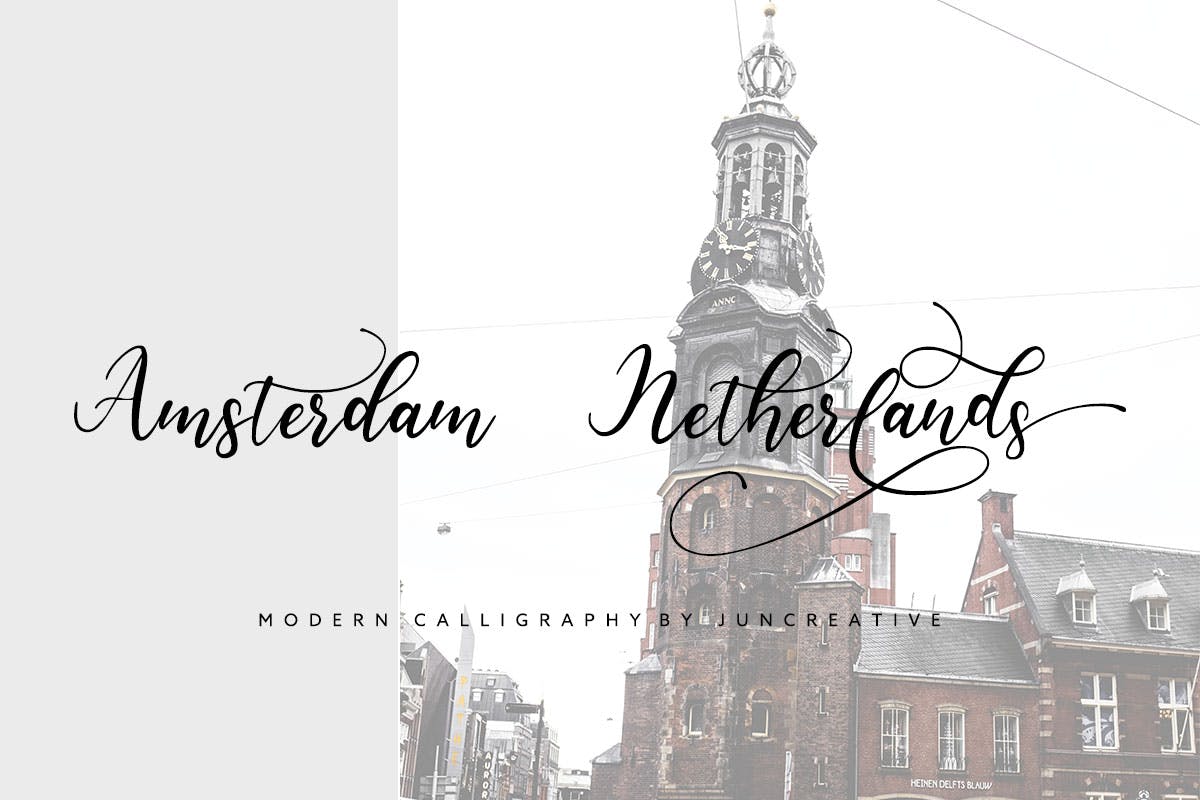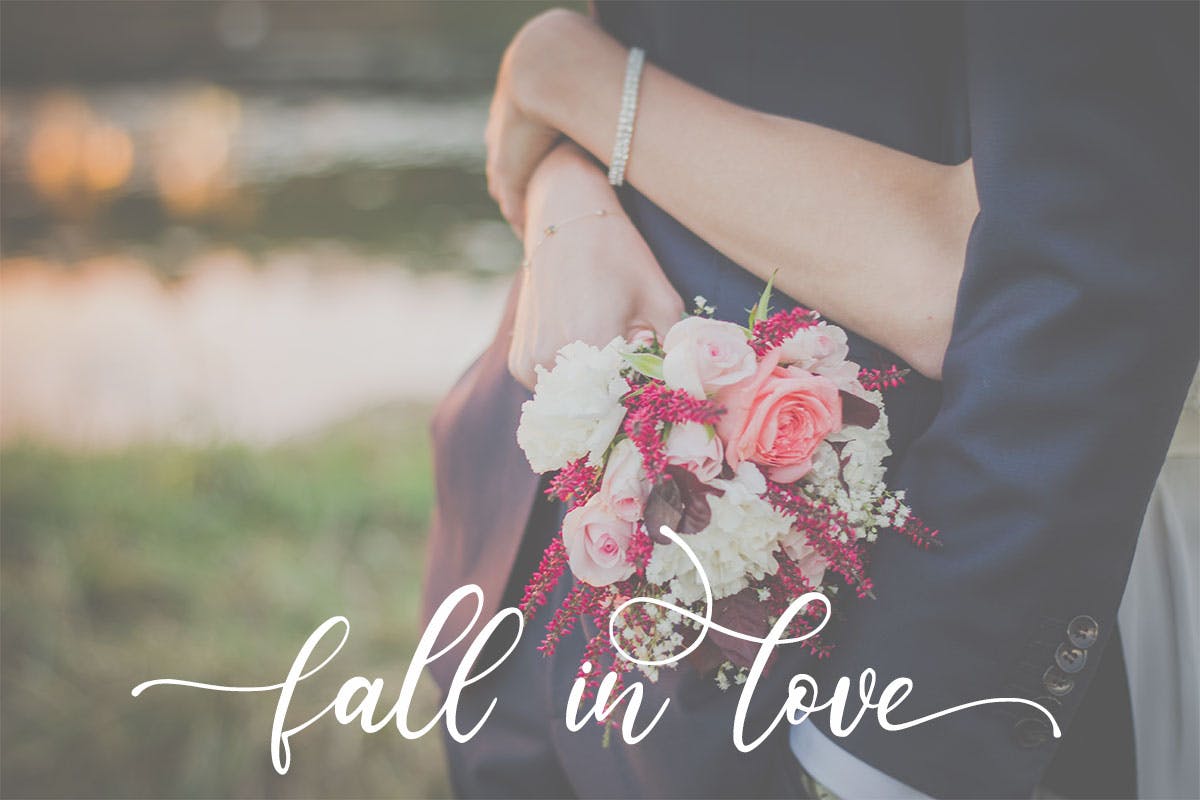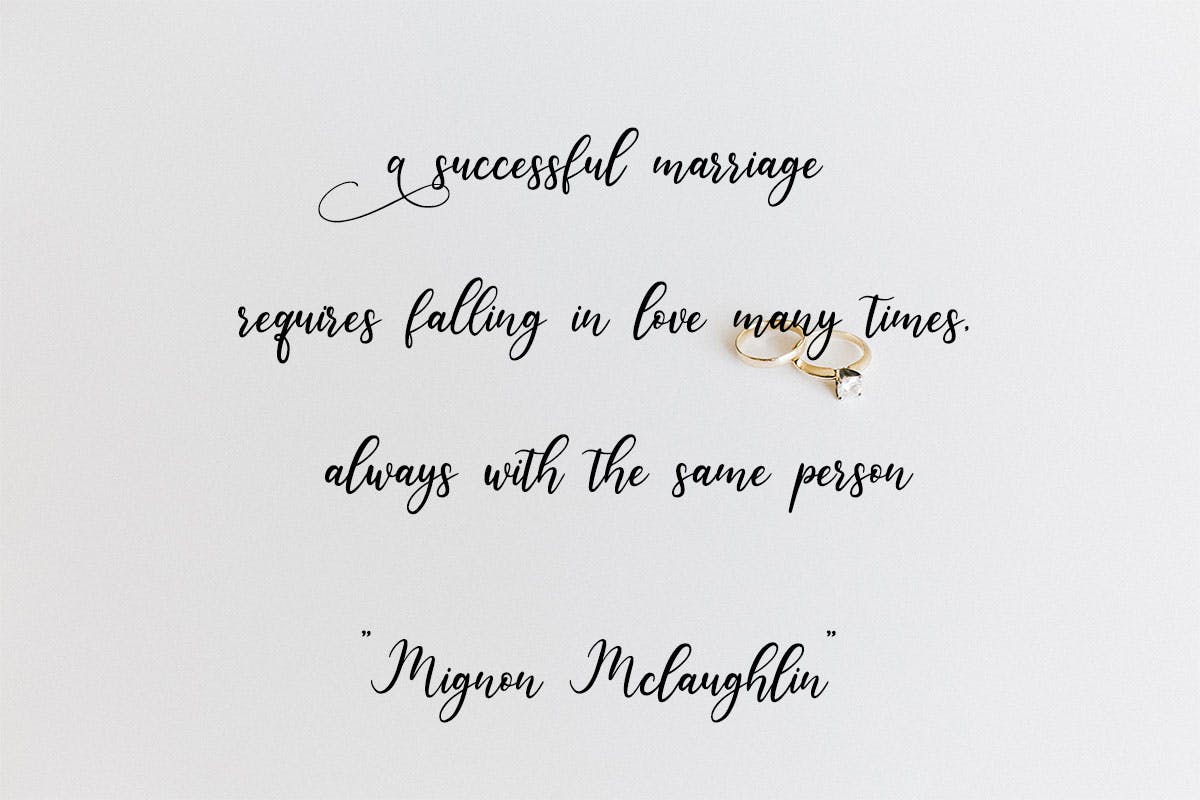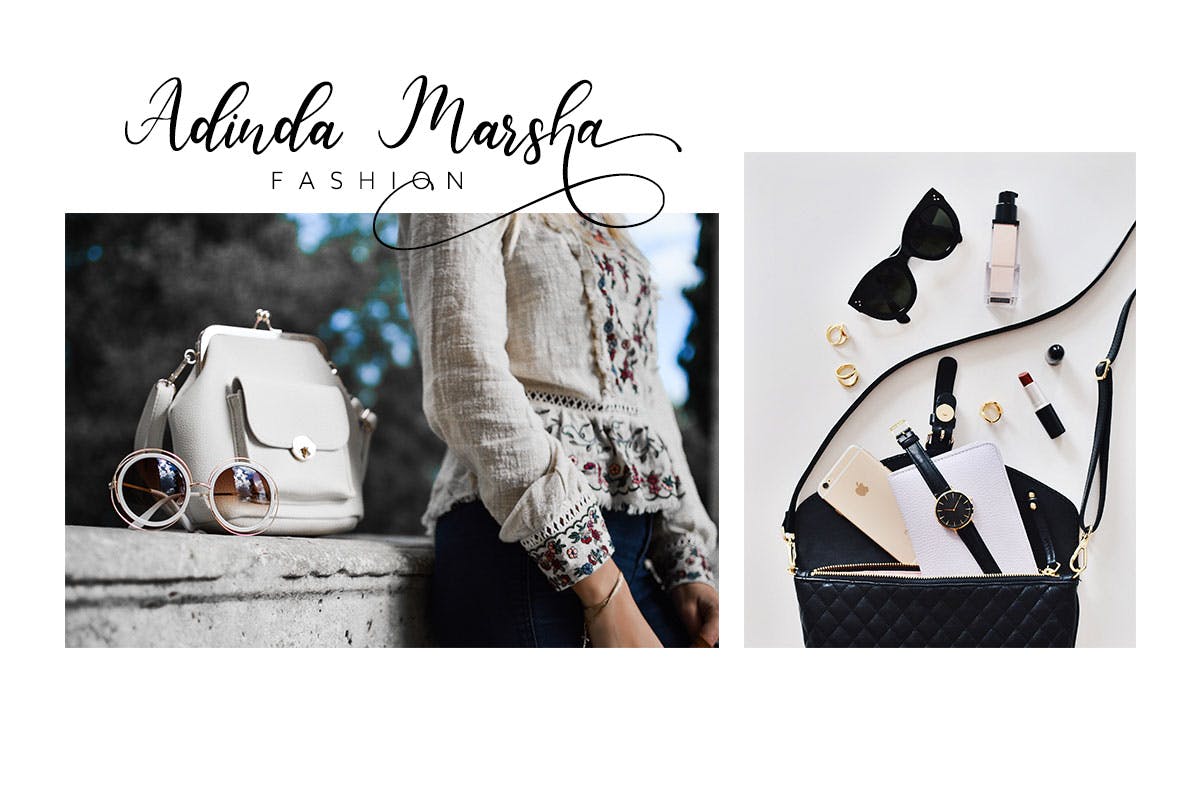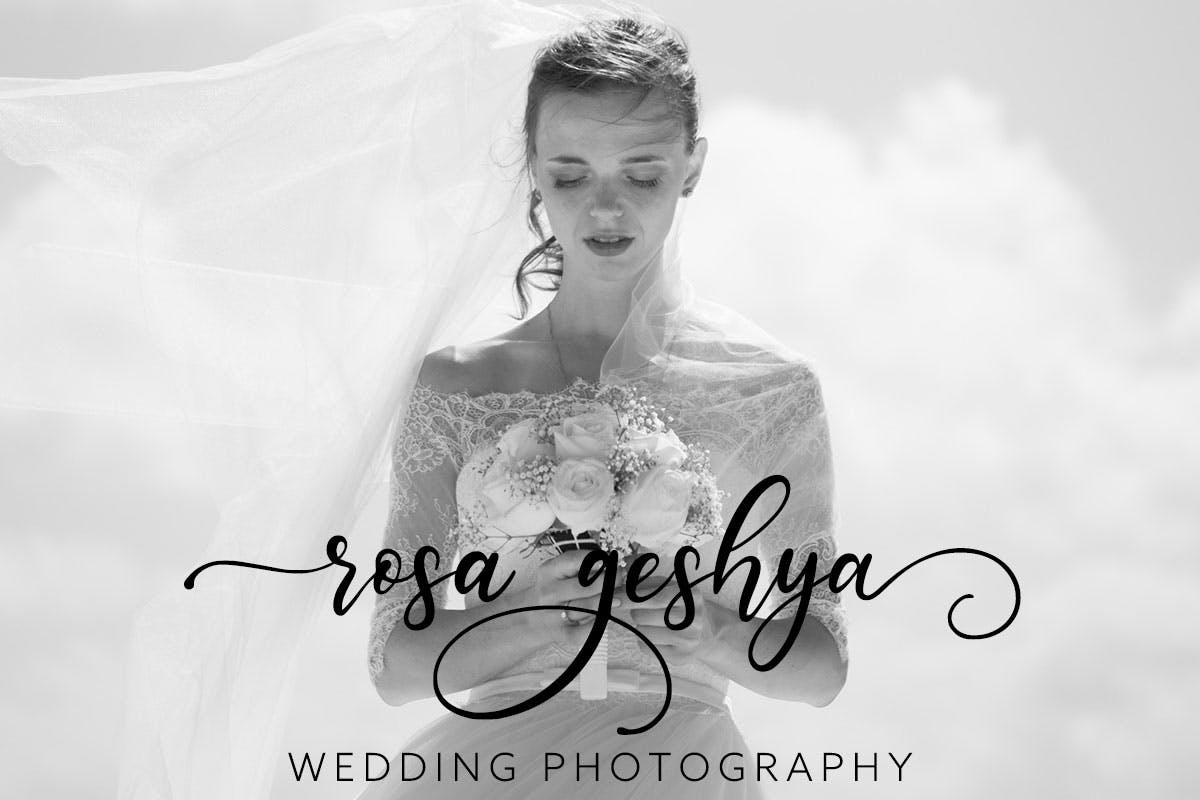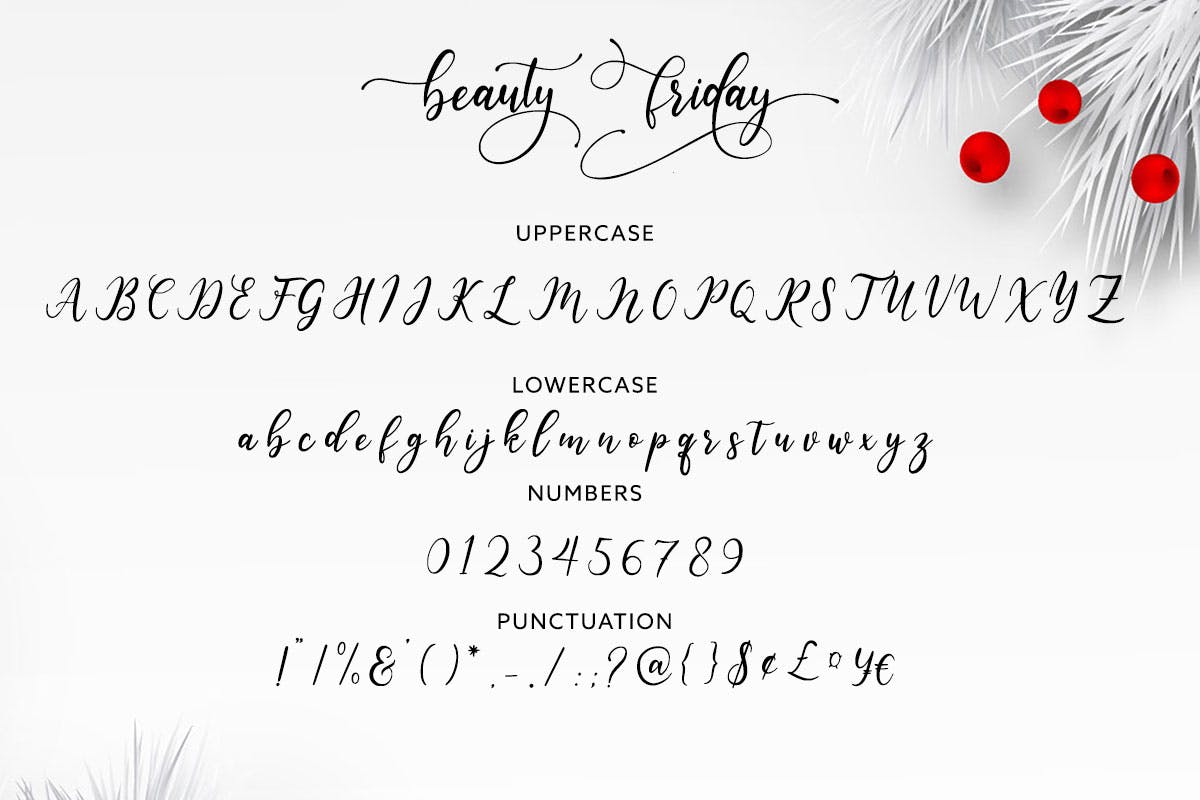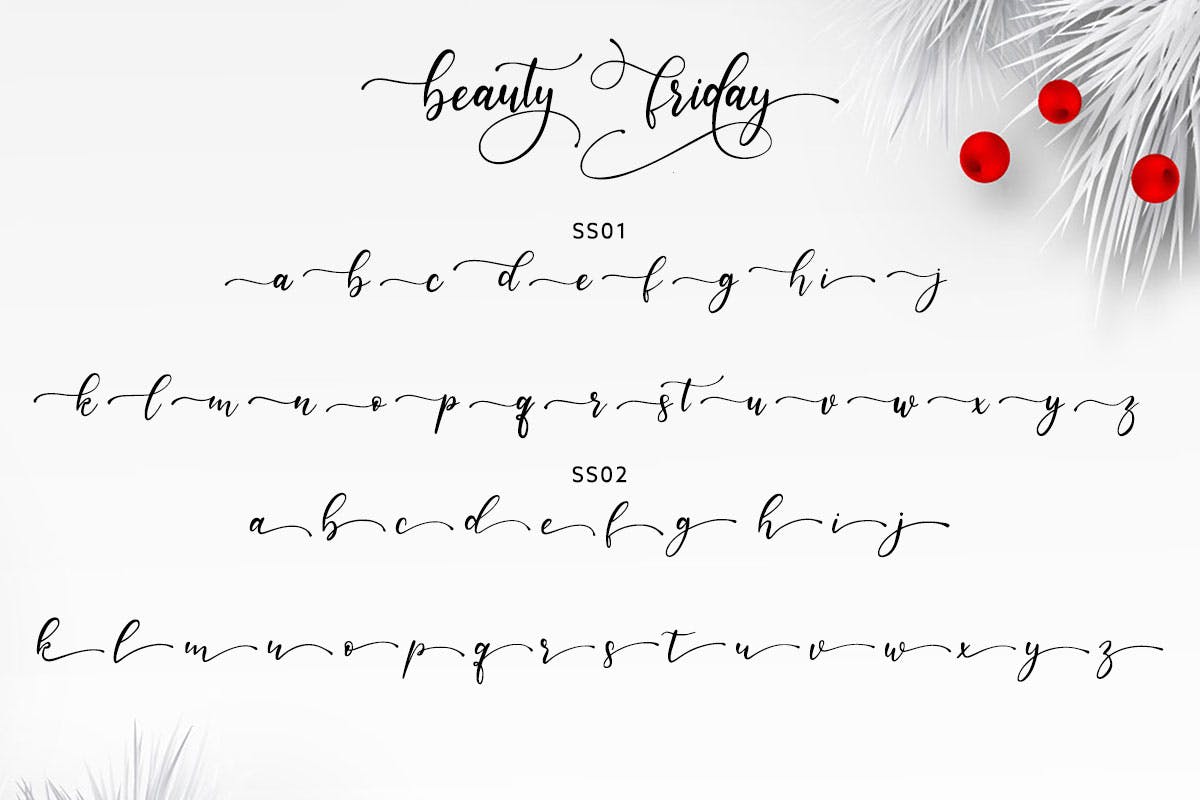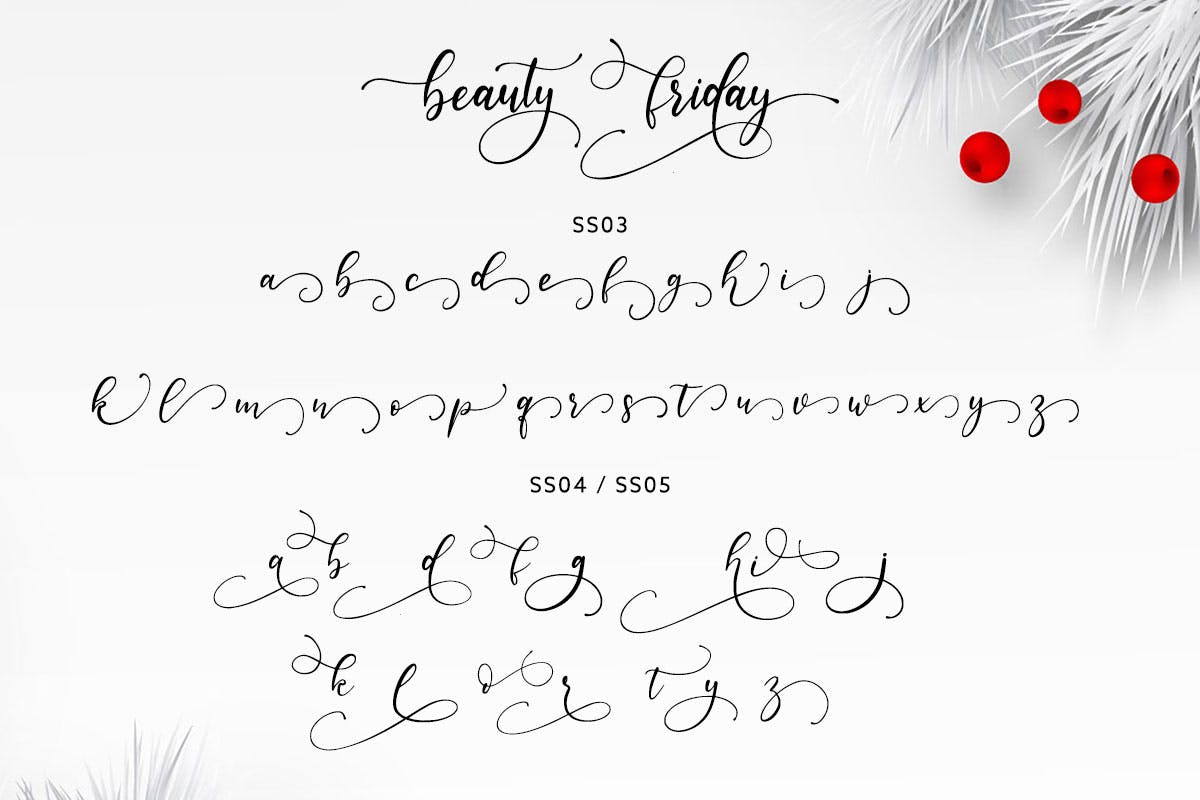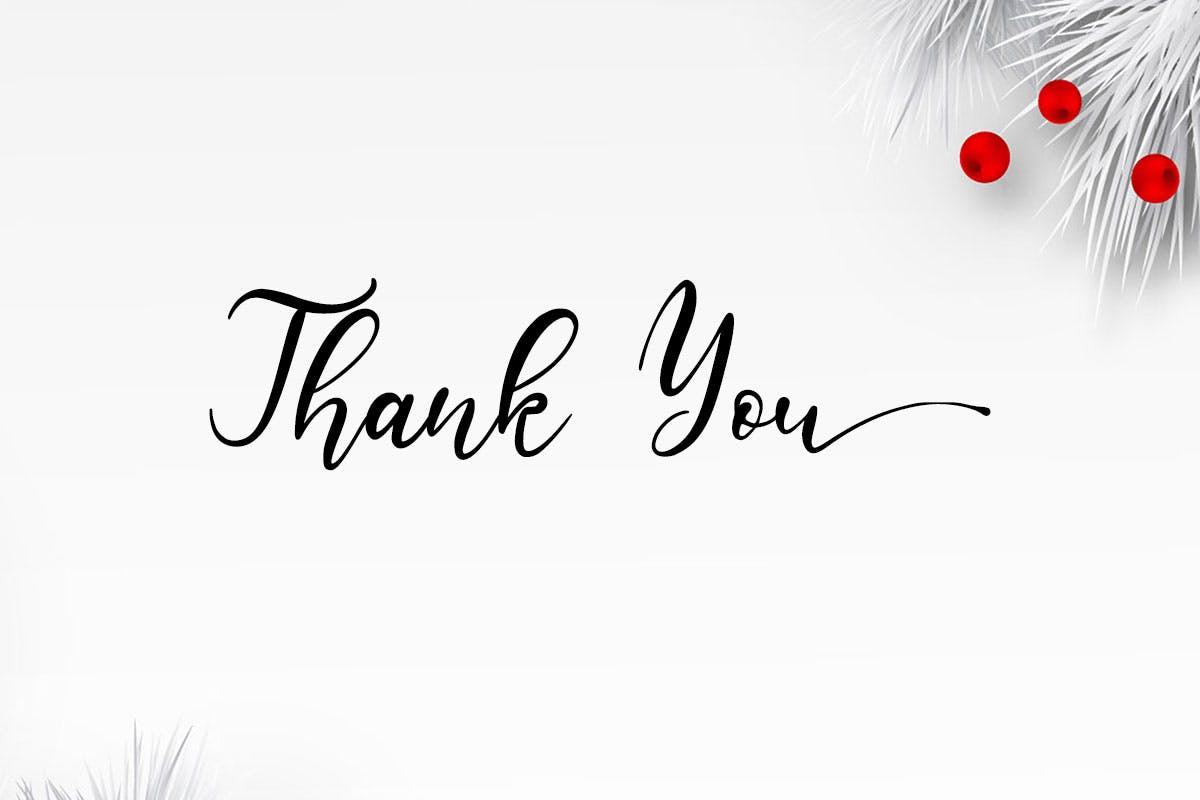
Free Beauty Friday Script
Free Beauty Friday Script is an awesome script font. It is useful for you to create your designs look professional. This font is available in OTF format file that you can install and use it on your devices. It is suitable for wedding invitations, gift cards, logo, food menu, and more. However, this free font is coming with a personal use license, but you can get the premium version for using it on your commercial project.